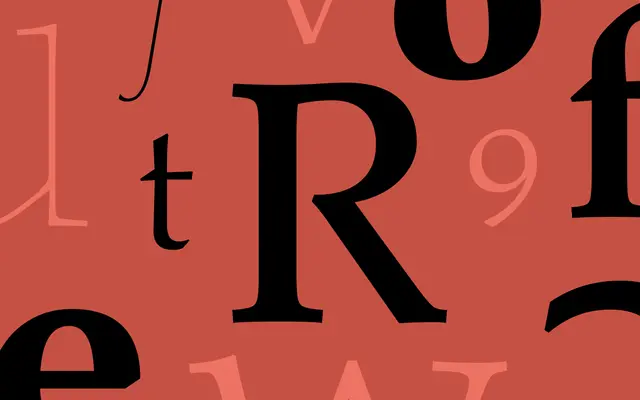
Amarelle Serif
Dalton Maag · Deiverson Ribeiro, Ben Jones · 2024
A serif inspired by Hermann Zapf's 1948 design, drawn as the serif corner of the Amarelle suite.
Dalton Maag's Amarelle Serif is a serif by Deiverson Ribeiro and Ben Jones, designed and developed 2024 to 2025. The variable font runs Hairline to Black with matching italics on an Italic axis, and forms the serif member of the Amarelle suite alongside Amarelle Sans and Amarelle Chancery. Latin coverage supports over 790 languages.
Dalton Maag describes Amarelle Serif as one of a unified trio of typefaces in the Amarelle suite, inspired by Hermann Zapf's influential 1948 serif design and reimagined alongside its Sans and Chancery counterparts with shared cues for stylistic cohesion.